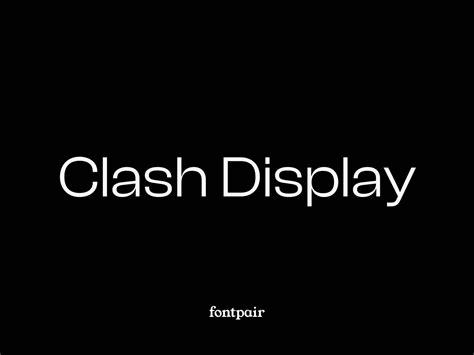
Web this free fonts element for your web inspiration was built with free fonts, display, type, font, typography, variable font. Web clash grotesk display is a family of sans serif fonts for use in large sizes. Web clash display variable bold fonts free download.
Web clash display variable bold fonts free download. Web this free fonts element for your web inspiration was built with free fonts, display, type, font, typography, variable font. Web clash grotesk display is a family of sans serif fonts for use in large sizes.